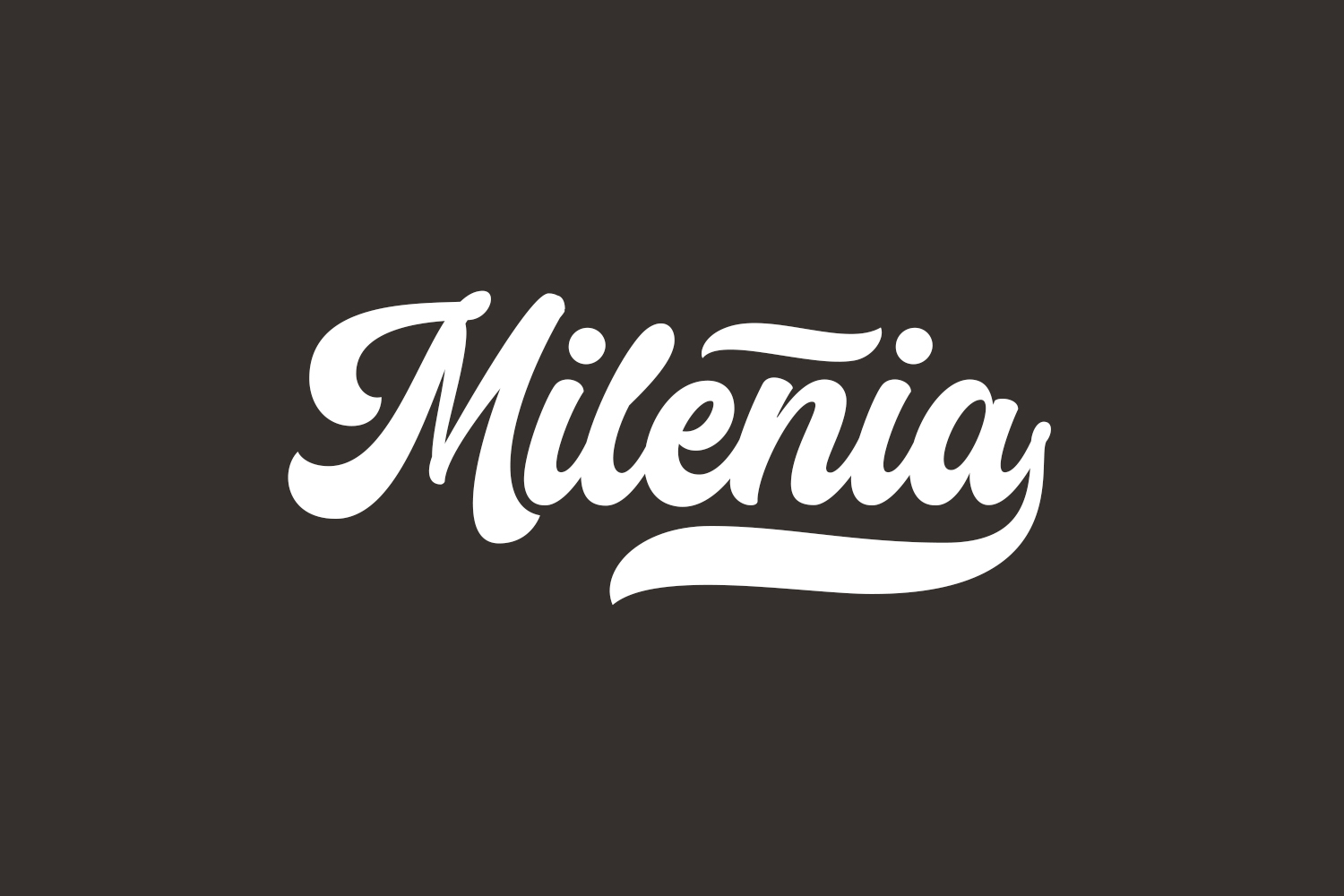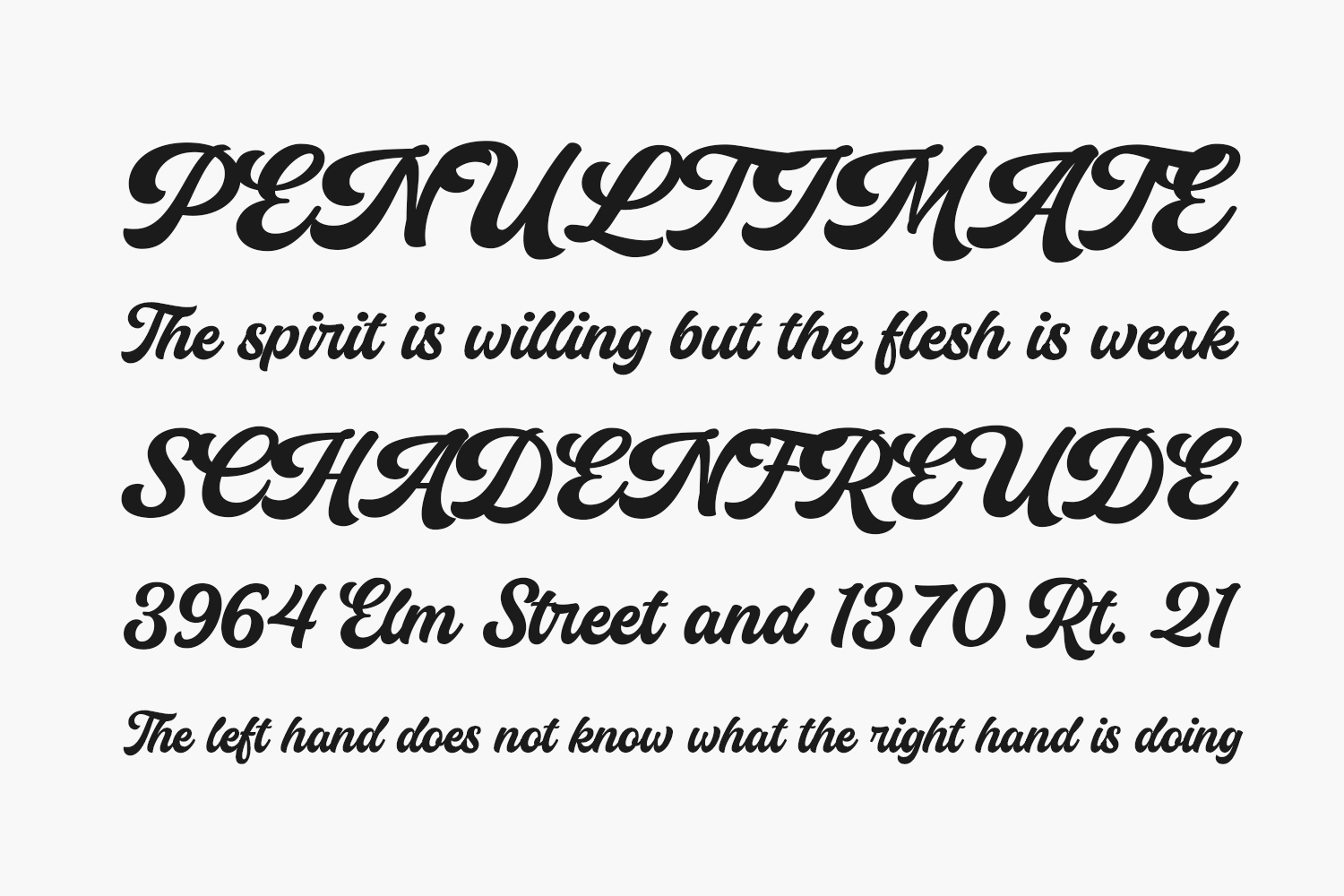
Milenia Free Font is a gorgeous and bold handwritten font, crafted to give your headlines and logotype projects a retro touch. This font reads as strong, confident, and dynamic and can add tons of nostalgic character to your designs.